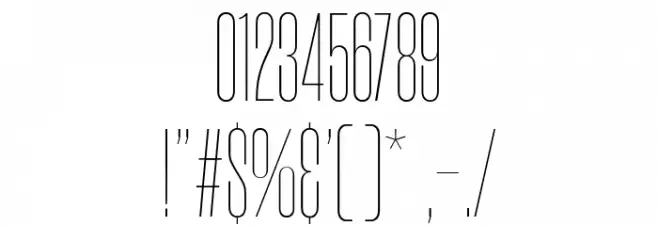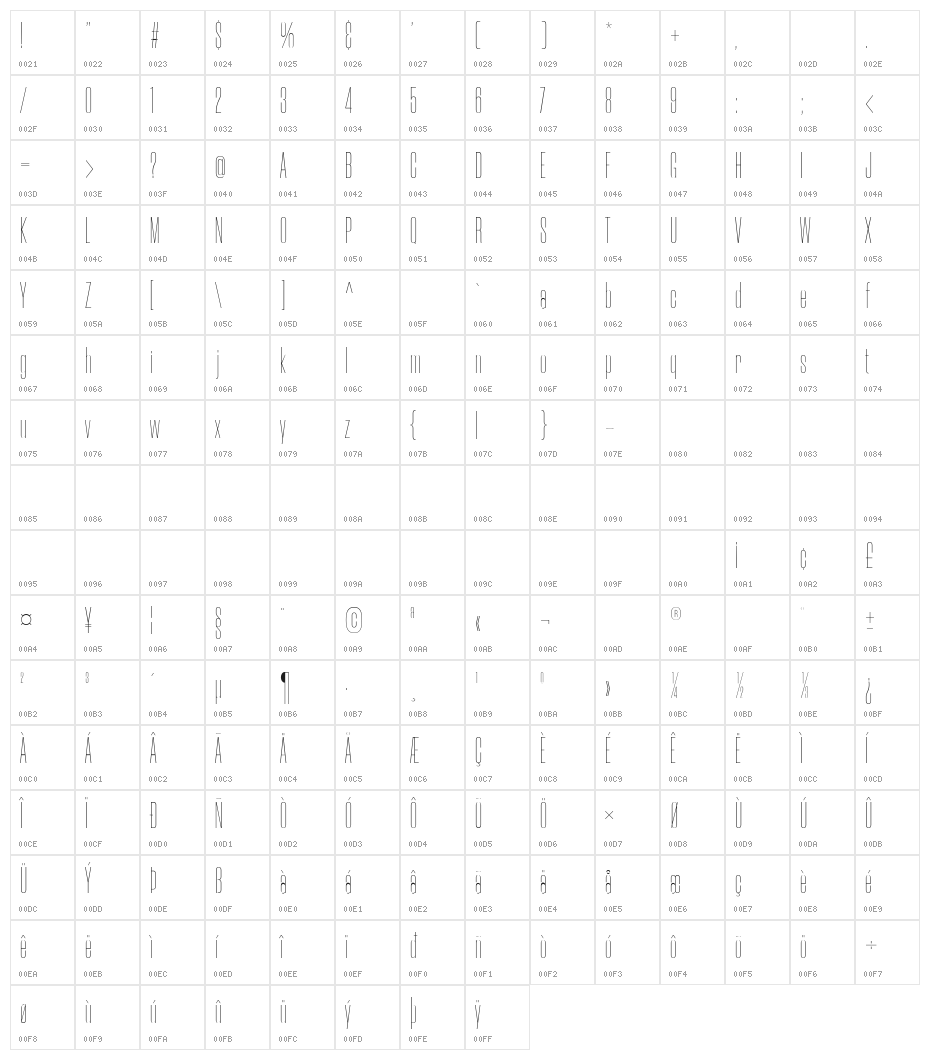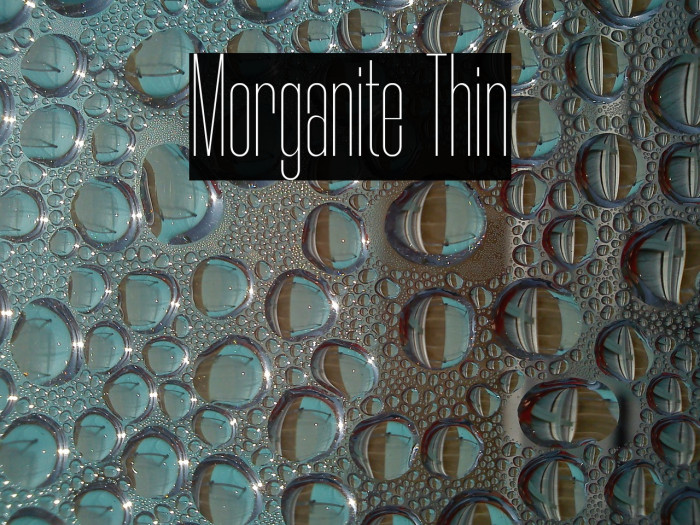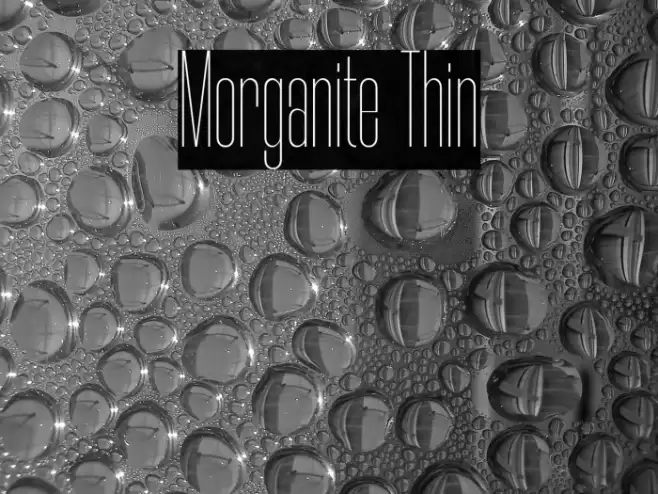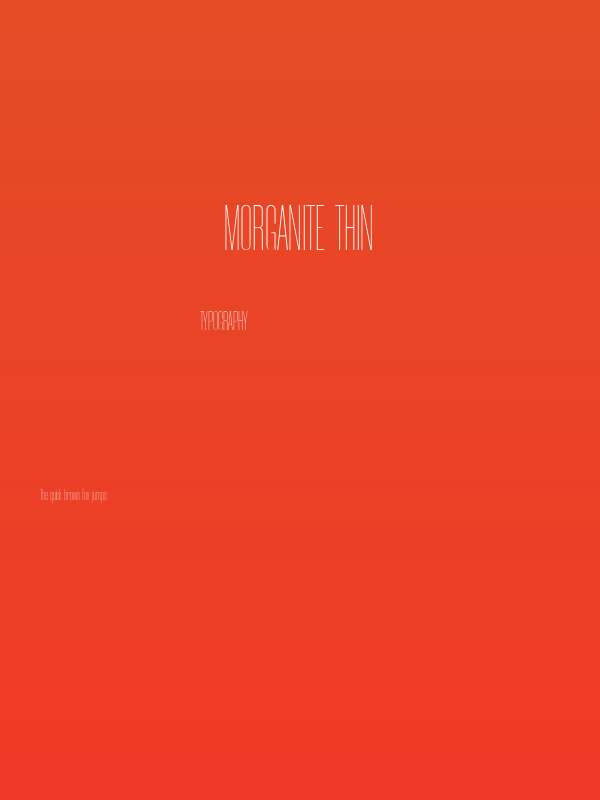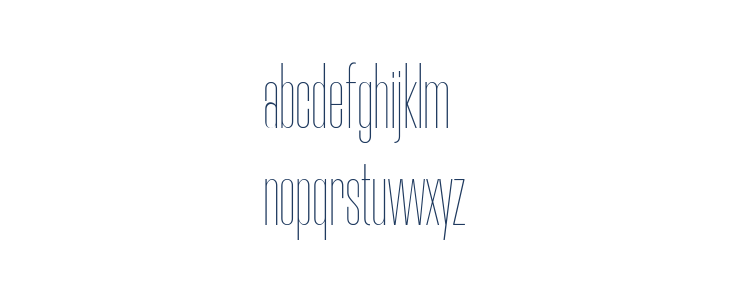
Morganite Thin Font
Morganite Thin Description
This font features an ultra-thin, elegant design with elongated letterforms that convey a sense of modern sophistication. The characters are tall and narrow, giving it a sleek and stylish appearance. The minimal stroke contrast and clean lines make it ideal for high-end branding and fashion-related projects. Its geometric structure is balanced with a touch of softness, making it versatile for various design needs. The font maintains clarity and readability despite its thin weight, making it suitable for both digital and print media. The spacing between characters is tight, enhancing its contemporary aesthetic.
| Proposed Projects | Ideal for luxury branding, fashion magazines, minimalist logos, and elegant invitations. |